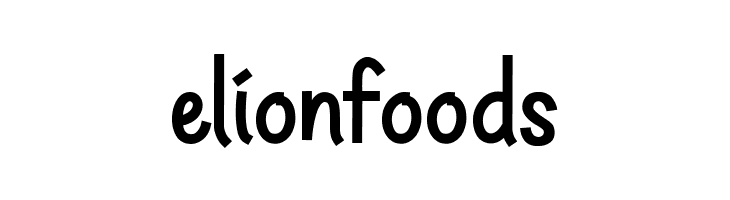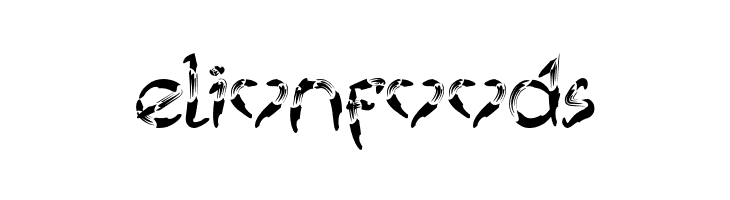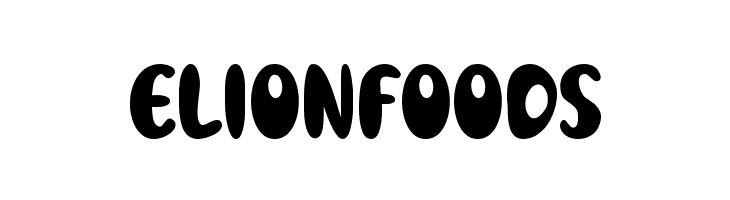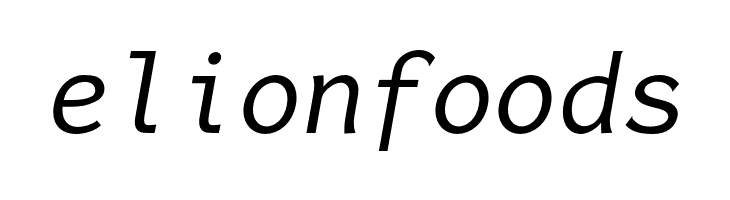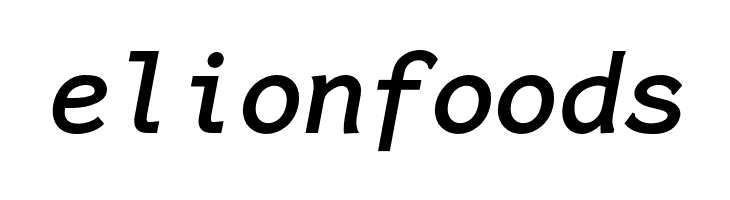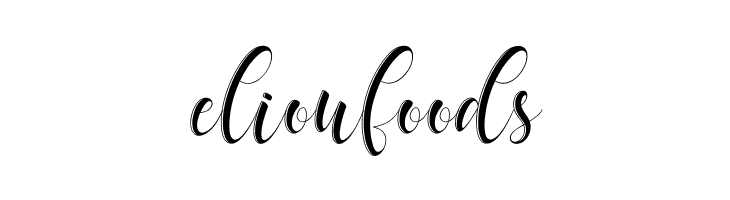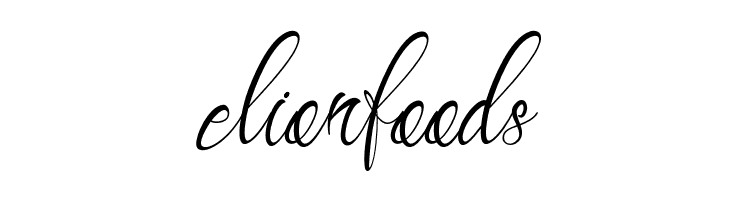
A playful, hand-drawn font with a whimsical and informal style.
A bold, brush-stroke font with dynamic and artistic flair.
A bold, playful font with rounded edges and a cartoonish style.
A clean, modern monospaced typeface ideal for coding and technical documentation.
A modern, monospaced italic font with medium contrast and clean lines.
A bold, monospaced typeface with a clean and modern design.
A bold, italic, monospaced font with medium contrast and modern style.
A playful, handwritten font with thin, delicate strokes and a whimsical style.
An elegant script font with flowing cursive letters and intricate swashes.
A sophisticated script font with flowing, calligraphic letterforms and high contrast strokes.